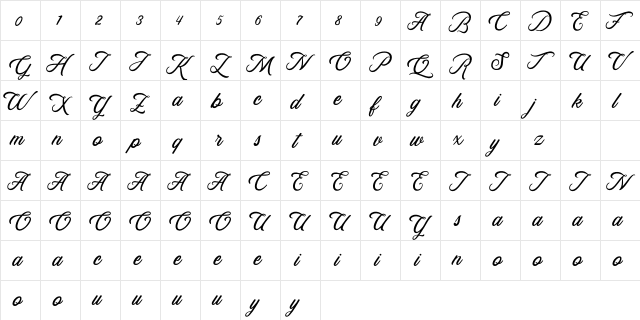
Rosewell Script Demo Regular
Design Context for Rosewell Script Demo Typeface
Rosewell Script Demo flows with the natural rhythm of handwritten lettering, making it ideal for designs that call for warmth and personal expression.